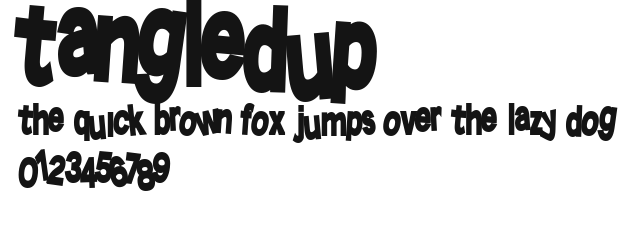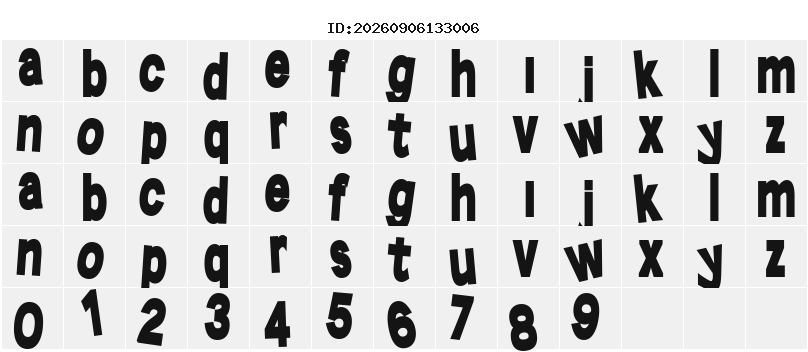
• Font Name: TangledUp
• Full Font Name: TangledUp
• PostScript Name: TangledUp
About TangledUp.ttf
TangledUp.ttf is a modern, elegant sans-serif font designed for ultimate readability and visual harmony. Perfect for branding, headlines, web design, and print materials.